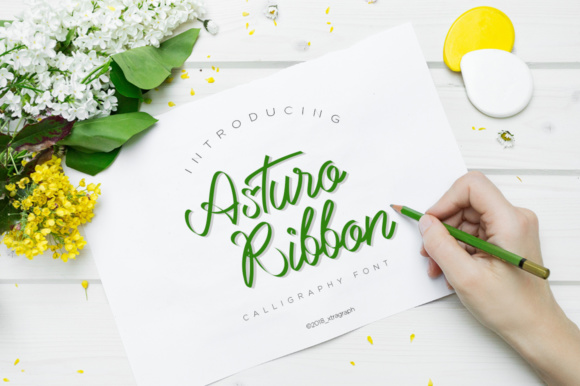
Asturo Ribbon Font: Elevate Your Design with Elegance and Sophistication
The Asturo Ribbon Font is a stunning, elegant, and sophisticated typeface that has been making waves in the design world. Its unique ribbon-like design makes it perfect for a variety of applications, from wedding invitations to fashion magazines, logos, signatures, and even watermark photography. In this article, we’ll dive into the world of Asturo Ribbon Font and explore its features, uses, and benefits.
What is Asturo Ribbon Font?
Asturo Ribbon Font is a decorative typeface that features a beautiful, flowing ribbon design. Its elegant and sophisticated look makes it perfect for designs that require a touch of luxury and glamour. The font is highly versatile and can be used for a wide range of applications, from digital designs to print materials.
Features of Asturo Ribbon Font
The Asturo Ribbon Font has several features that make it stand out from other typefaces. Some of its key features include:
- Elegant and sophisticated design: The font features a beautiful, flowing ribbon design that adds a touch of luxury and glamour to any design.
- Highly versatile: The font can be used for a wide range of applications, from digital designs to print materials.
- Easy to read: Despite its decorative design, the font is highly legible and easy to read.
- Customizable: The font can be customized to fit your specific design needs.
Uses of Asturo Ribbon Font
The Asturo Ribbon Font is highly versatile and can be used for a variety of purposes, including:
Wedding Invitations
Asturo Ribbon Font is perfect for wedding invitations, adding a touch of elegance and sophistication to your special day. The font’s beautiful, flowing design makes it ideal for creating stunning wedding invitations that will leave a lasting impression on your guests.
Fashion Magazines
The font’s luxurious and glamorous design makes it perfect for fashion magazines, adding a touch of sophistication and elegance to your publication.
Logos and Signatures
Asturo Ribbon Font can be used to create stunning logos and signatures that will elevate your brand’s visual identity.
Watermark Photography
The font’s elegant design makes it perfect for watermark photography, adding a touch of sophistication and elegance to your photos.
Benefits of Using Asturo Ribbon Font
There are several benefits to using Asturo Ribbon Font, including:
- Elegance and sophistication: The font adds a touch of luxury and glamour to any design.
- Versatility: The font can be used for a wide range of applications.
- Legibility: The font is highly legible and easy to read.
- Customization: The font can be customized to fit your specific design needs.
Tips for Using Asturo Ribbon Font
Here are some tips for using Asturo Ribbon Font:
- Use it sparingly: Use the font sparingly to add a touch of elegance and sophistication to your design.
- Pair it with other fonts: Pair the font with other fonts to create a stunning visual effect.
- Experiment with colors: Experiment with different colors to find the perfect combination for your design.
Asturo Ribbon Font is a stunning, elegant, and sophisticated typeface that is perfect for a variety of applications. Its unique ribbon-like design makes it perfect for wedding invitations, fashion magazines, logos, signatures, and watermark photography. With its highly versatile design, ease of use, and customization options, Asturo Ribbon Font is a must-have for any designer looking to elevate their designs with elegance and sophistication.